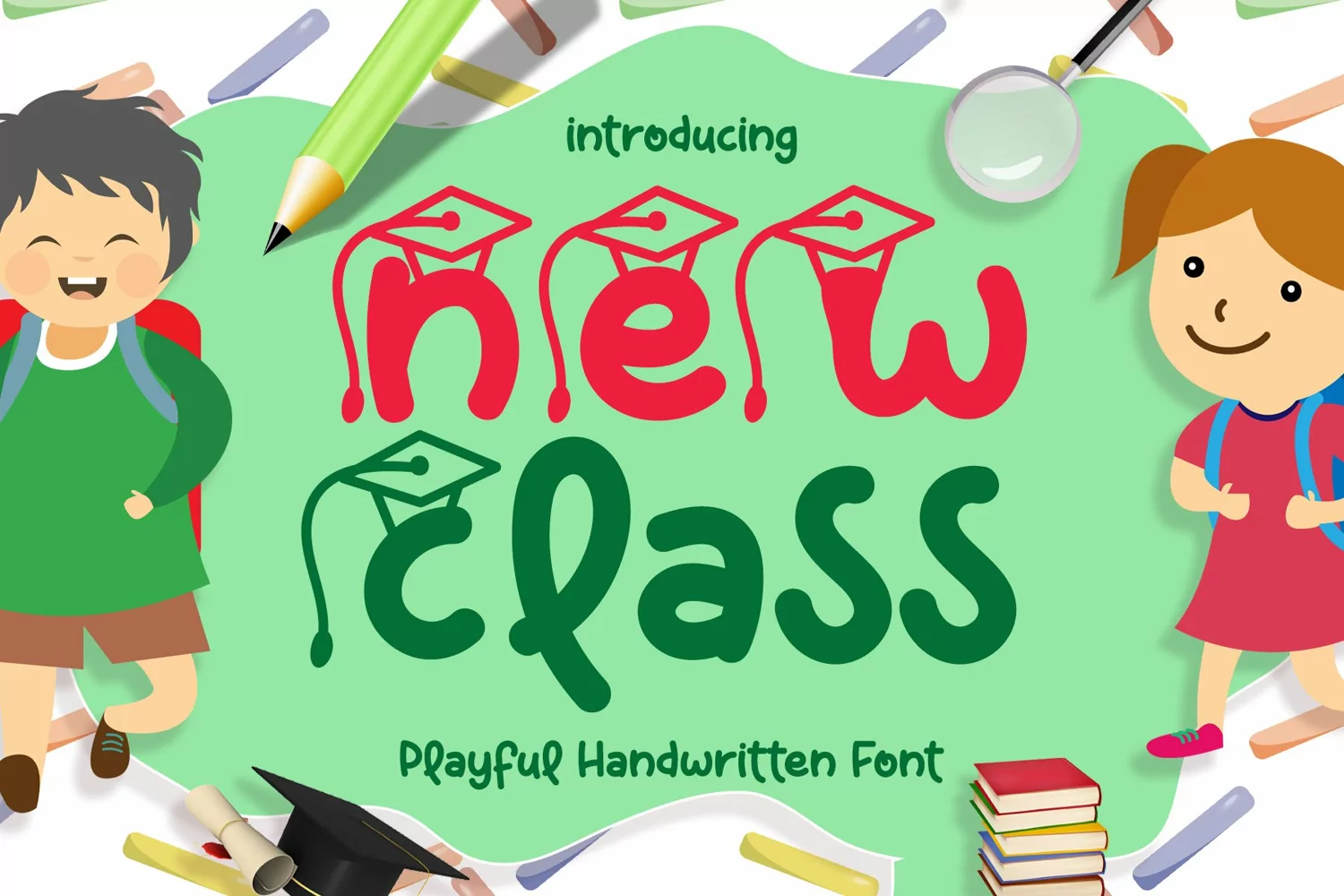
New class is playful handwritten font with school-themed. It's cute, sweet and playful. It also has the regular one for many other playful theme.
- Tons of Glyphs
- Multilingual glyphs.